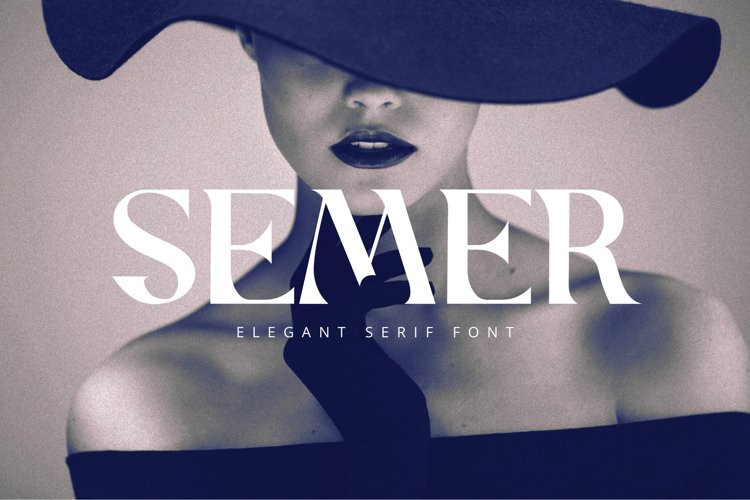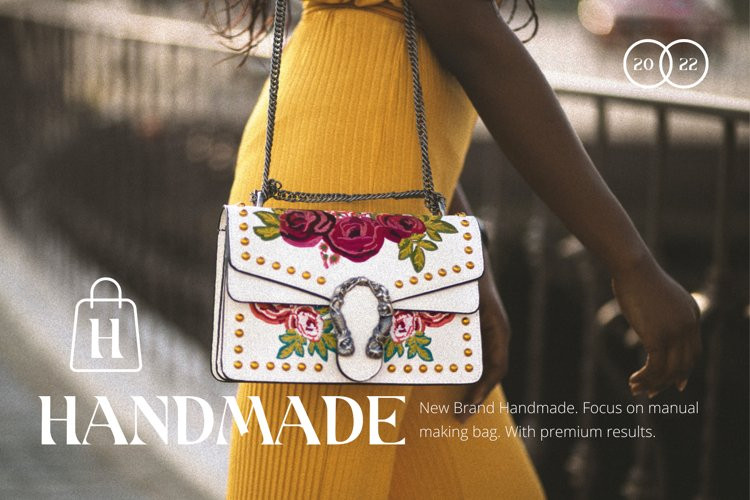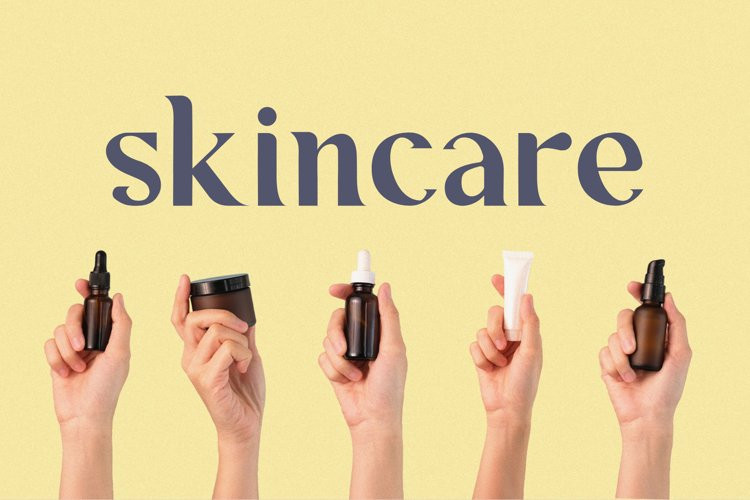
Semer Font
Semer FontIntroducing Semer is a serif font started from classic back in 80’s or 90’s but make it going to elegants. The line very clean but smooth upright. All in standart character very easy to use and add this font to your most creative ideas for Fashion, Poster, Handmade Product, Beauty Skincare, Logotype and more you want to used! Support the Multilingual Language!